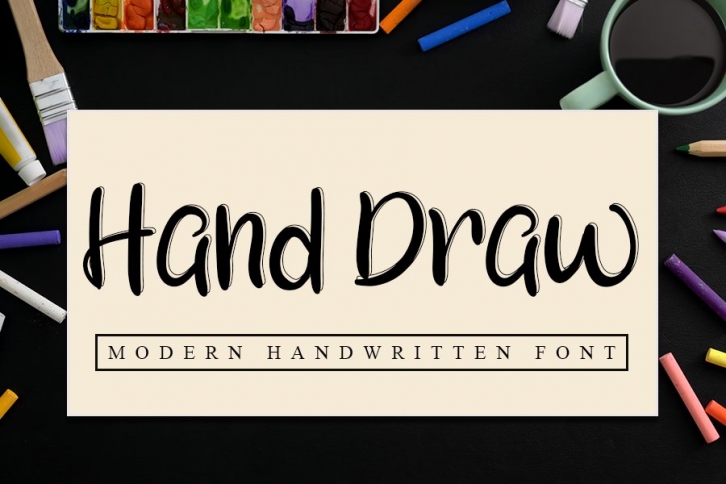
Hand draw is a beautiful font that was designed by InermediaSTUDIO. It's a great choice for designers and creatives who need such a font. It was released on October 6, 2020 and the file size is 12.14 MB. Hand draw may give a more youthful, expressive and casual look to your project. It is a very beautiful, refined, elegant, and high-quality font.